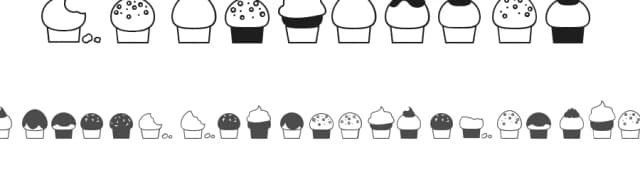
About Ice Lolly Ding Font
Ice Lolly Ding is a dingbat font designed by MeCreativa. It includes 236 glyphs, a regular weight, TTF (TrueType) format, and 209 languages. Ice Lolly Ding is free to download; check the license details on this page before commercial use. Dingbat fonts like Ice Lolly Ding work best for icons, ornaments, bullet points, and decorative accents.
Ice Lolly Ding Font is a versatile dingbats font that works for both headings and body text. Pair it with a contrasting sans-serif or serif font to add visual interest and a clear distinction between titles and body copy.
Ice Lolly Ding Font